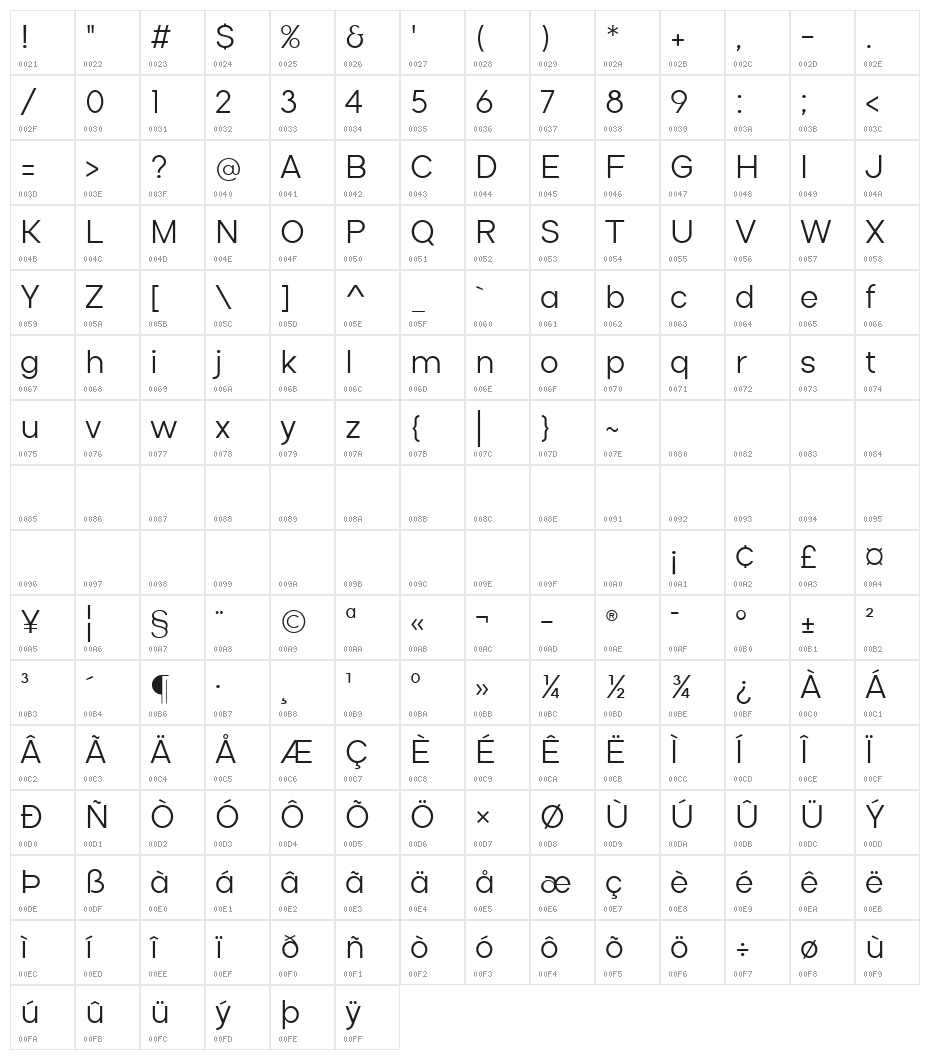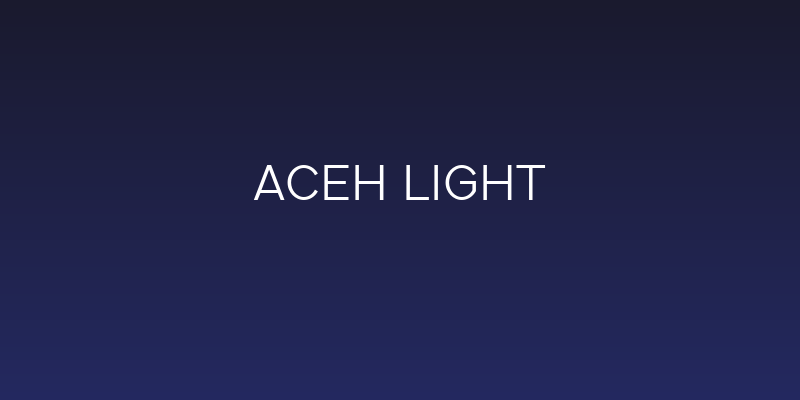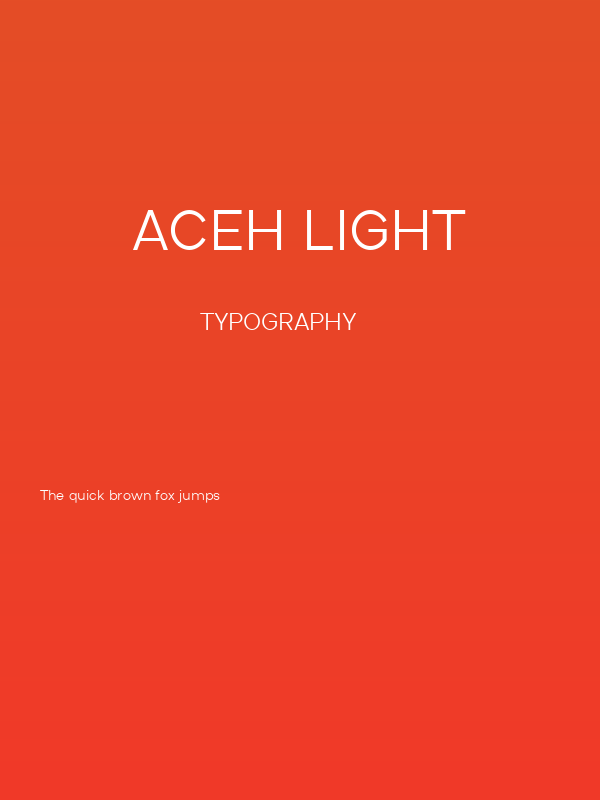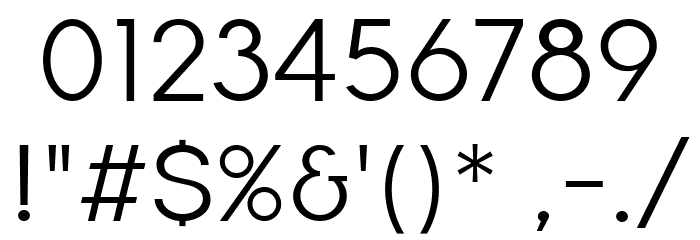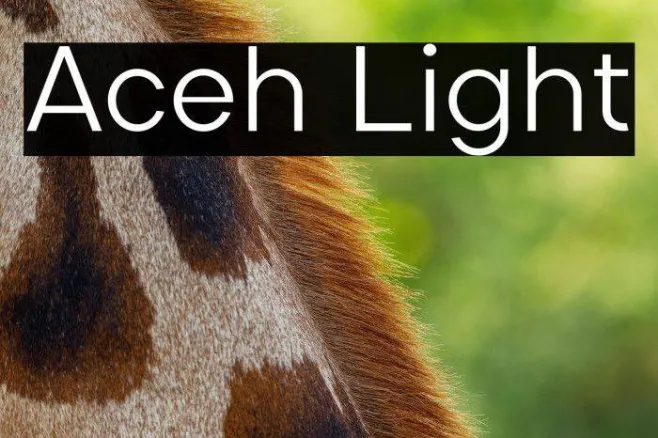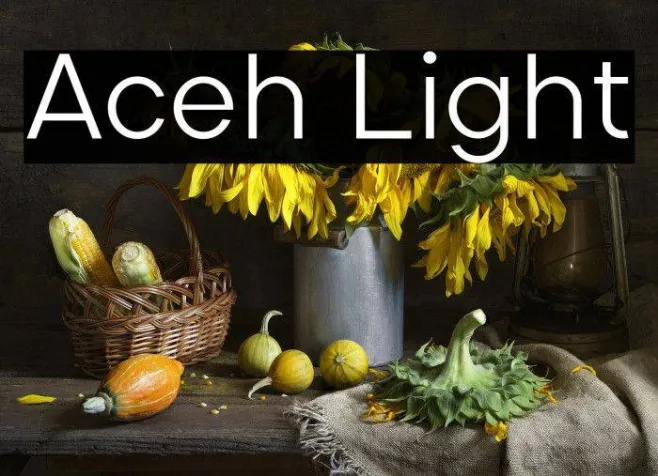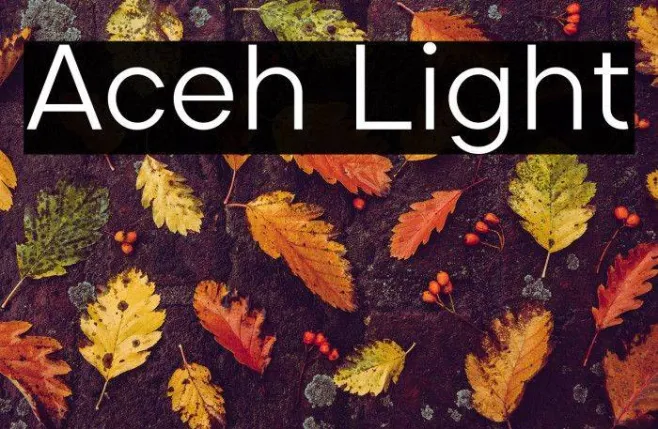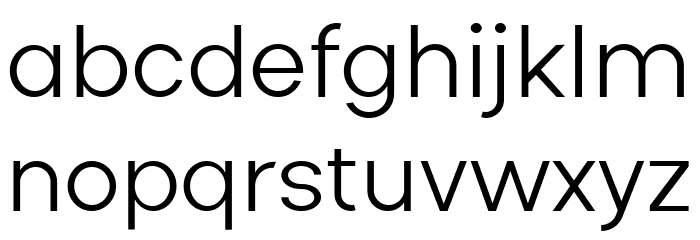
Aceh Light Font
Aceh Light Description
This typeface presents a clean and modern aesthetic with its simple and straightforward design. The characters are evenly spaced, contributing to a harmonious and readable appearance. The strokes are uniform in thickness, providing a consistent look across all letters and numbers. The font's simplicity makes it versatile for various applications, from digital to print media. Its geometric shapes and balanced proportions give it a contemporary feel, suitable for minimalist designs. The inclusion of special characters ensures comprehensive usability across different contexts.
| Proposed Projects | Ideal for branding, web design, user interfaces, and print materials where clarity and modernity are key. |